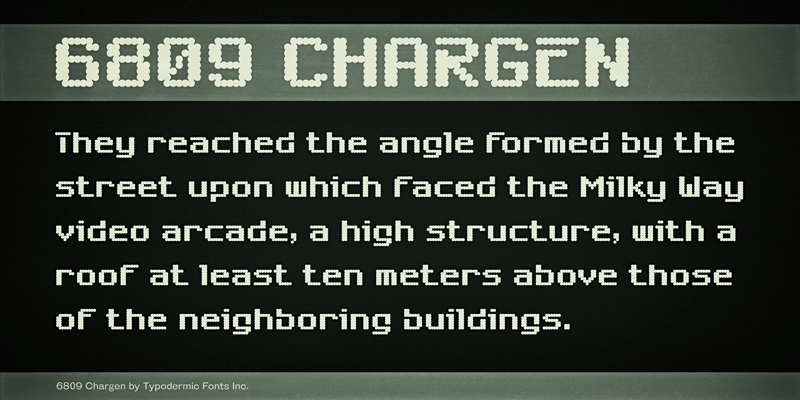
A throwback to some of the earliest fonts I made for the TRS-80 Color Computer, 6809 Chargen has been updated with improved vertical metrics for cross-browser web performance More languages are supported and accents have been redesigned. Spacing and kerning have been improved. More math symbols and punctuation, fractions and numeric ordinals dee doo dee doo. This font includes a license that allows free commercial use: sometimes referred to as a desktop license. This allows you to install the font on a computer and use it to create posters, web graphics, game graphics, t-shirts, videos, signs, logos and more. Read the license agreement for details. If you'd like to embed this font in an app, ebook, on the web or anything that's not covered by the desktop license agreement, visit the link below. You'll find distributors who offer different types of licenses or you can contact me for help. http://typodermicfonts.com/6809-chargen/ |